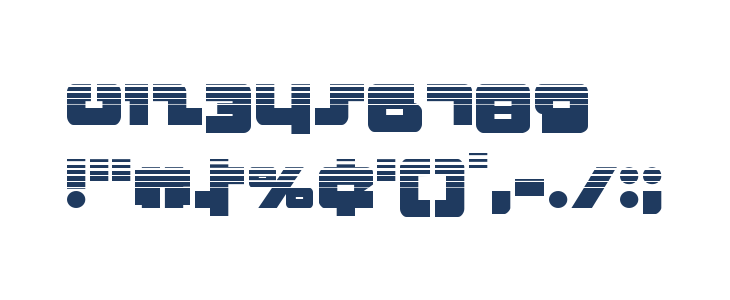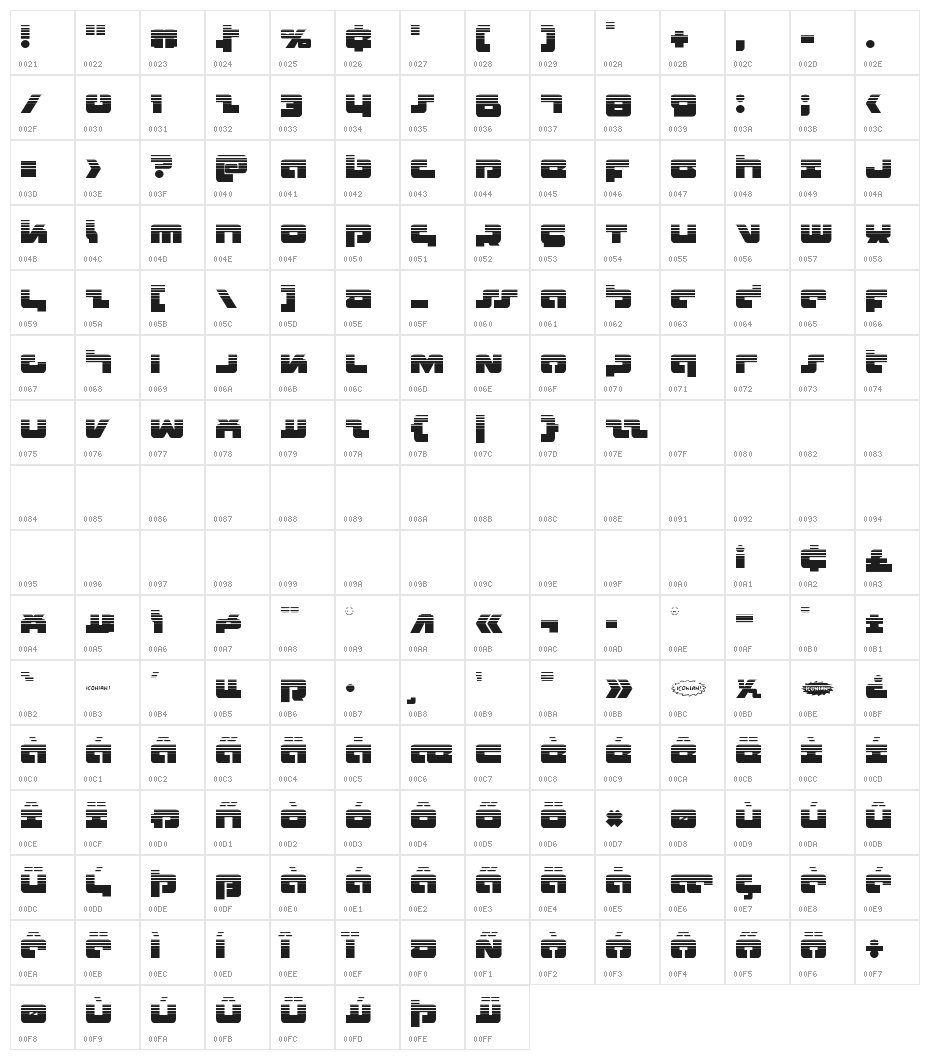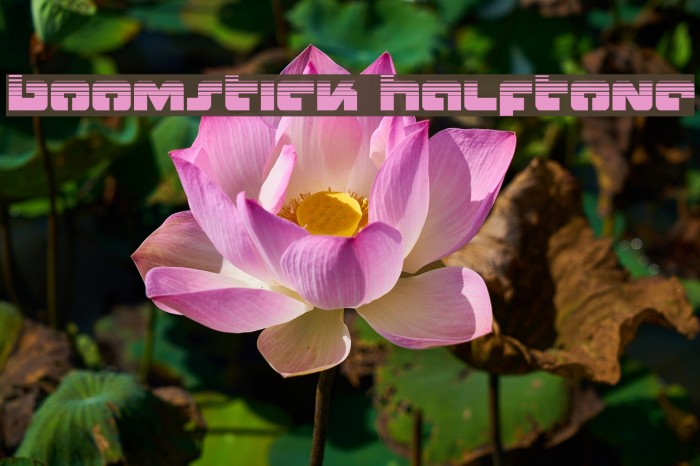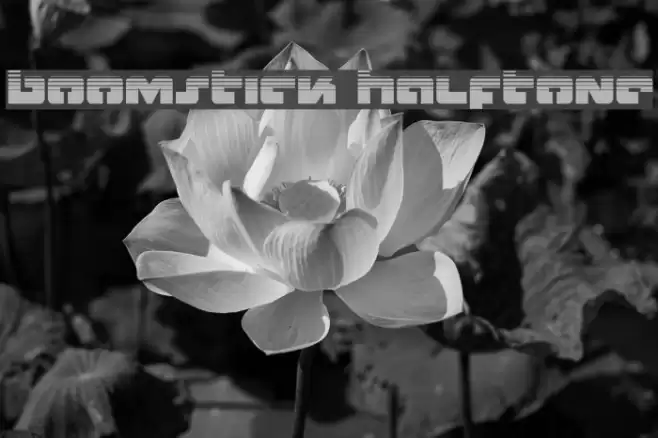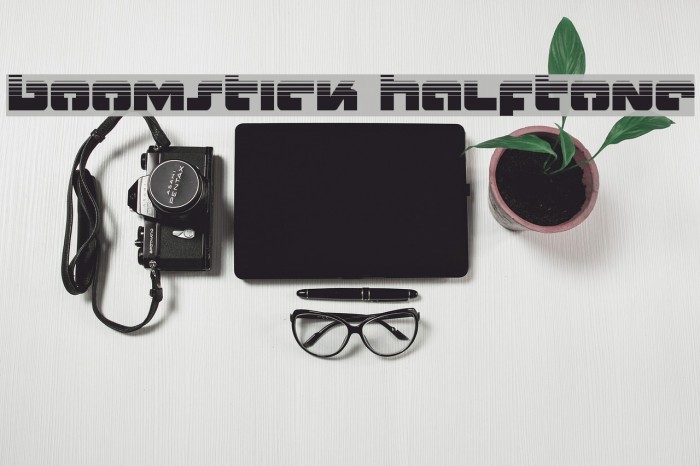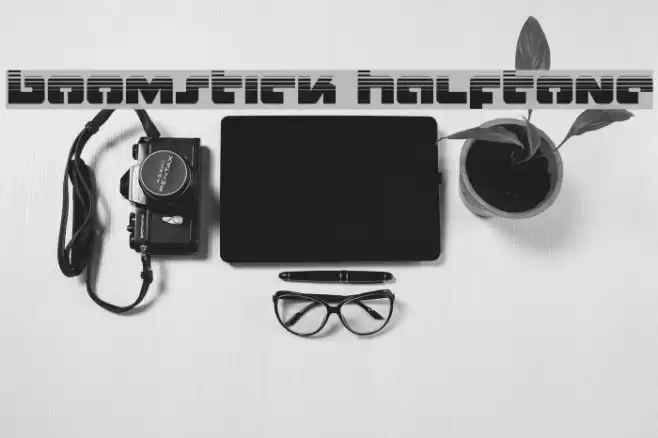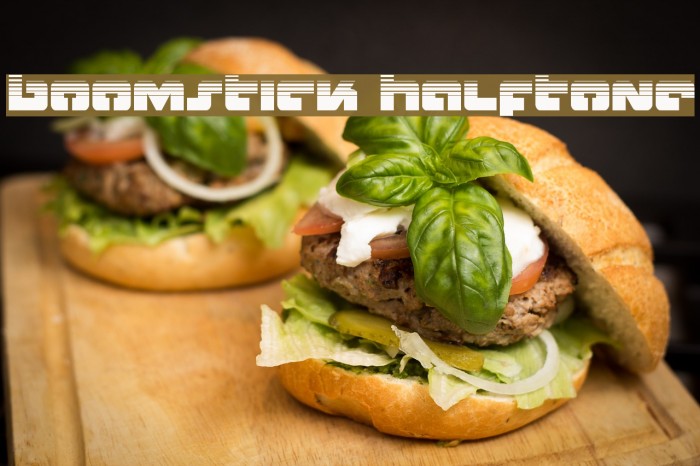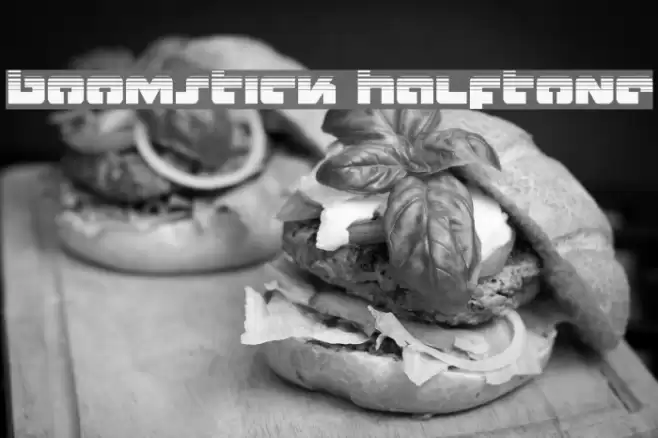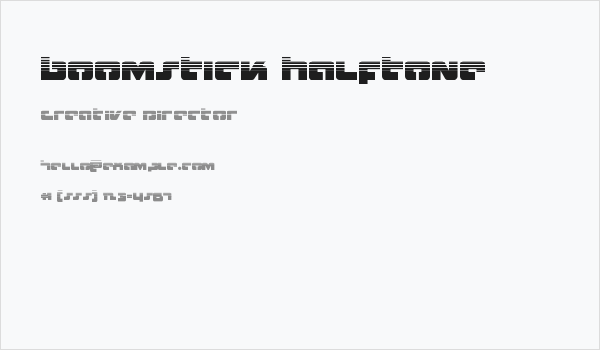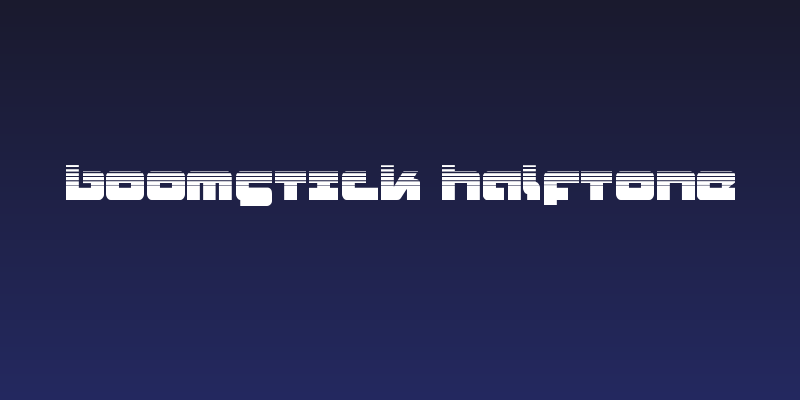
Boomstick Halftone Font
Boomstick Halftone Description
This font features a bold, geometric design with a halftone effect, creating a sense of depth and texture. The characters are constructed with horizontal lines that give a unique, layered appearance. This style is reminiscent of digital or futuristic themes, making it stand out with its distinct visual impact. The uppercase and lowercase letters maintain a consistent width, while the numbers and special characters follow the same design principle, ensuring uniformity across all glyphs. The font's strong visual presence makes it suitable for attention-grabbing designs.
| Proposed Projects | Perfect for digital art, sci-fi themed posters, video game graphics, and modern branding. |